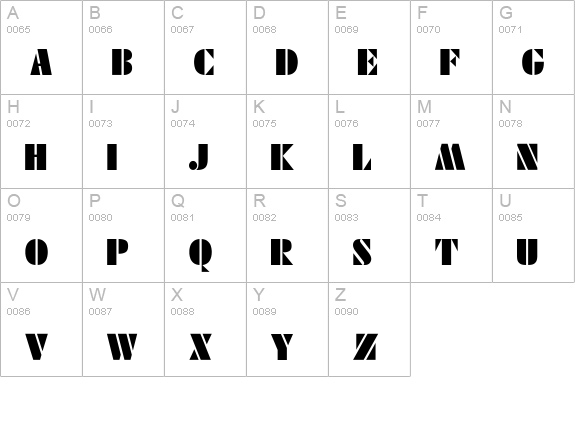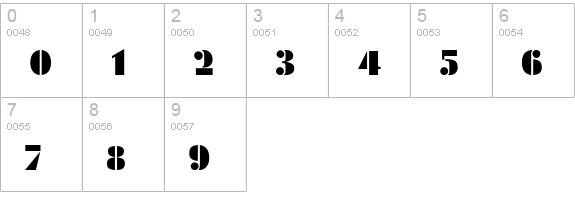
Futuri-Black-Normal is a maximum-weight, dramatic variant in the Futuri typeface family \xE2\x80\x94 well suited to maximum-impact headlines, posters, and packaging.
Futuri-Black-Normal is a sleek and modern font that exudes sophistication and elegance. Featuring clean lines and a bold presence, this typeface is perfect for making a statement in your designs. The sharp edges and strong strokes of Futuri-Black-Normal make it ideal for headlines, logos, and other branding materials where you want to command attention. What's even better is that Futuri-Black-Normal is freely available to download at FontsMarket.com. You can easily add this versatile font to your collection and use it in a wide range of projects without any restrictions. Whether you're working on a print design, web project, or anything in between, Futuri-Black-Normal will elevate your work with its impactful presence and timeless appeal. Download it today and see the difference it can make in your designs!